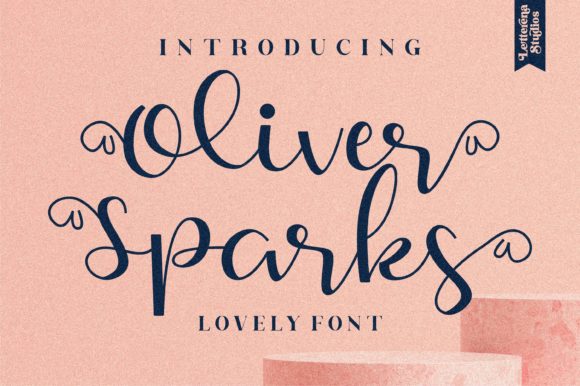
Embark on an artistic adventure with Oliver Sparks, the enchanting script font that captivates hearts and imaginations. Every stroke of this handwritten masterpiece dances with grace and elegance, exuding a charm that's both timeless and contemporary. Its delicate curves and whimsical flourishes bring a touch of romance and whimsy to any design, making it the perfect companion for your creative endeavors.
With Oliver Sparks, you hold the key to unlocking a world of design possibilities. Whether you're crafting heartfelt wedding invitations, heartfelt cards, or adding a personal touch to branding materials, this versatile font will elevate your creations with its undeniable charm. Its sweet and jolly nature shines through in every letter, captivating the senses and leaving a lasting impression.
But Oliver Sparks is more than just a pretty face. It's a font that's been meticulously crafted to provide you with the utmost flexibility and ease of use. Its OpenType features, including ligatures and alternate characters, allow you to effortlessly add depth and personality to your designs. Plus, its PUA encoding ensures that you can access all of its glyphs and swashes with ease, making it a breeze to create stunning designs that exude uniqueness and charm.
Oliver Sparks is the ultimate choice for designers, crafters, and anyone seeking a font that exudes both beauty and functionality. Its versatility extends to a wide range of projects, including logos, posters, social media graphics, and even tattoo designs. With its ability to evoke emotions and capture attention, Oliver Sparks will undoubtedly transform your designs into works of art that speak to the soul.
Step into the world of Oliver Sparks, where creativity knows no bounds. Let its enchanting strokes breathe life into your projects and leave an unforgettable mark on your audience. Embrace the beauty of the handwritten word and unlock the potential of your imagination with this captivating script font!